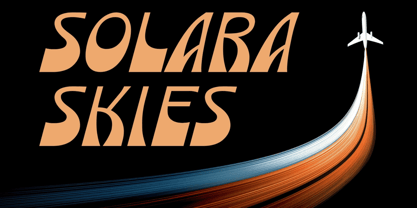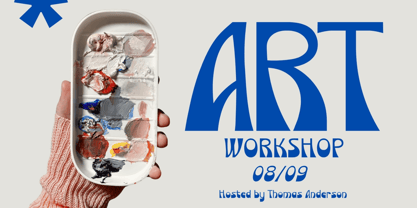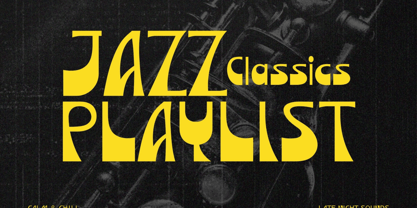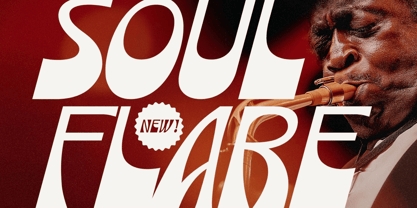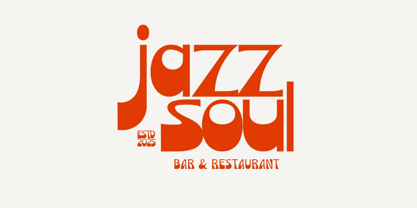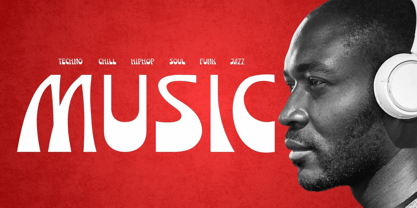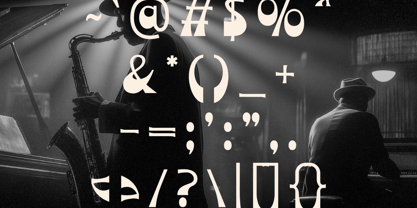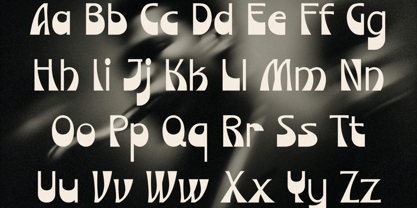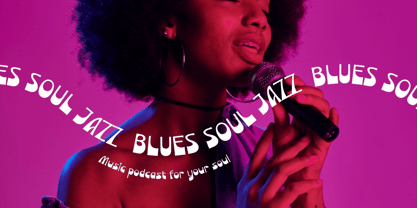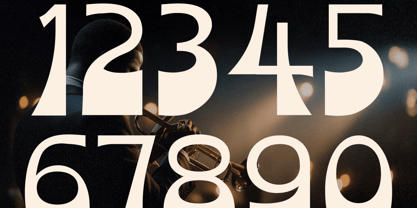
Soulflare
The Soulflare Font Family was designed by Igor Ovsyannykov and published by Hipfonts. Soulflare contains 2 styles and family package options. More about this family
Soul Flare is a groovy retro display typeface that fuses vintage character with sleek contemporary design. Built for bold expression and cinematic impact, it carries a strong visual rhythm shaped by sharp curves, confident strokes, and dynamic contrast.
Designed in two styles—Regular and Italic, Soul Flare gives designers flexibility between structured strength and expressive motion. The Italic version introduces a flowing sense of speed and energy, while the Regular style delivers grounded, powerful letterforms with a timeless display presence.
With support for 65 languages and a full set of uppercase and lowercase characters, Soul Flare is crafted for global creative use without losing its distinct personality. Every glyph is designed to feel intentional, blending Western-inspired aesthetics with modern typographic precision.
This typeface thrives in projects that demand attention—movie titles, posters, branding, album covers, editorial layouts, packaging, and high-impact advertising. It carries a cinematic tension that feels both nostalgic and forward-looking, making it ideal for storytelling-driven design.